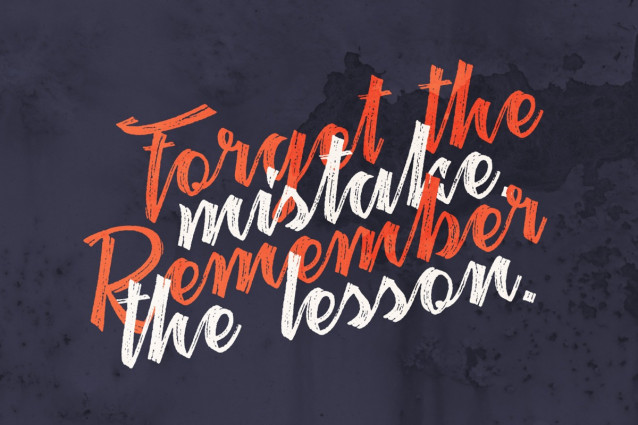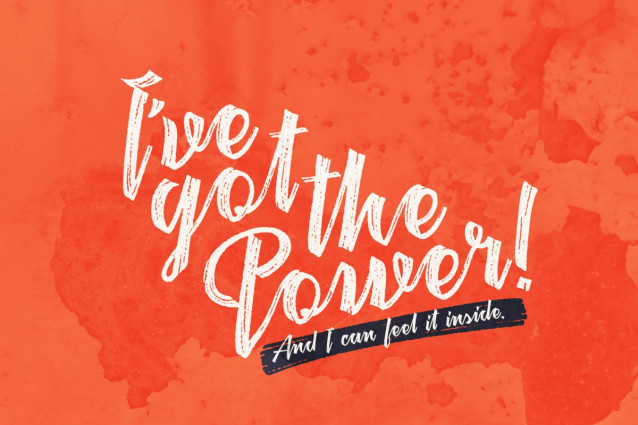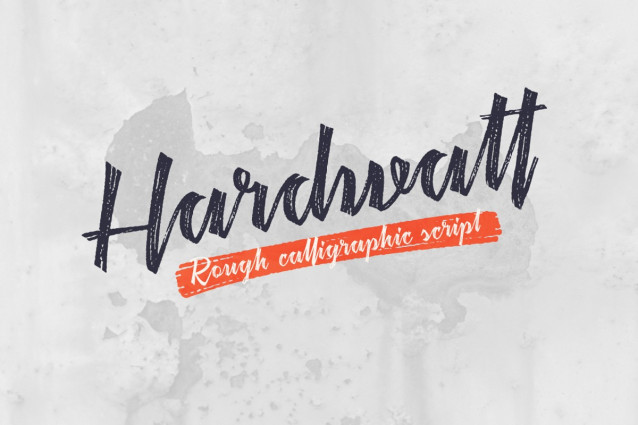
Hardwatt Script Font
Hardwatt Script Font a calligraphic font with natural scratched texture effect. It’s a script with connected letters, lots of characters including West European languages support and few ligatures.